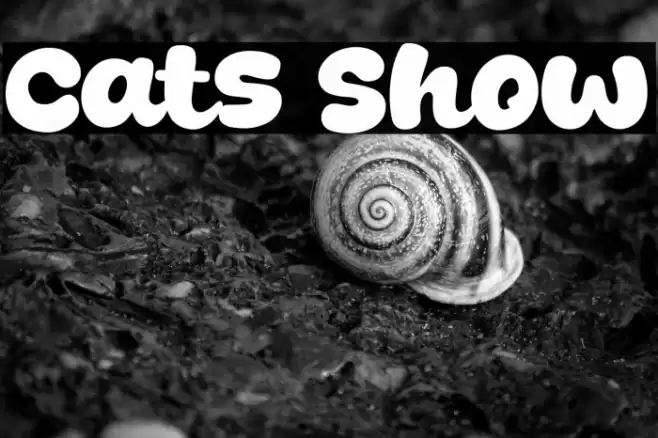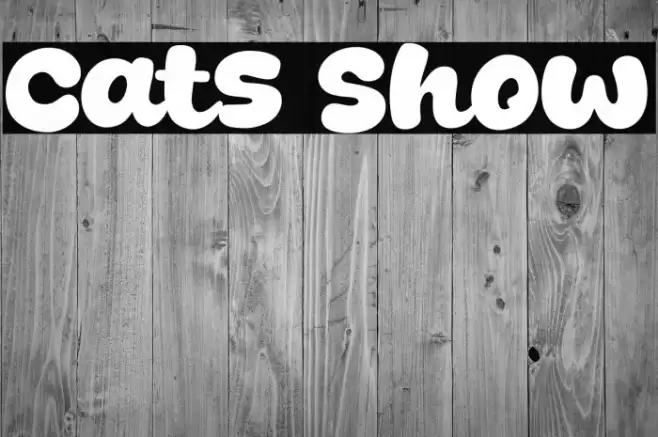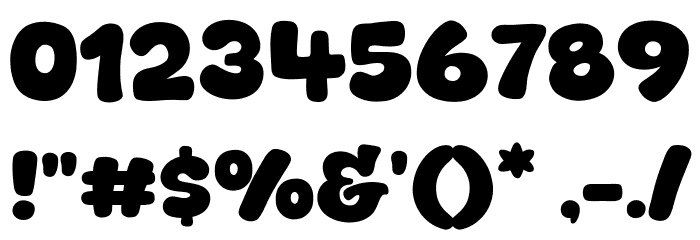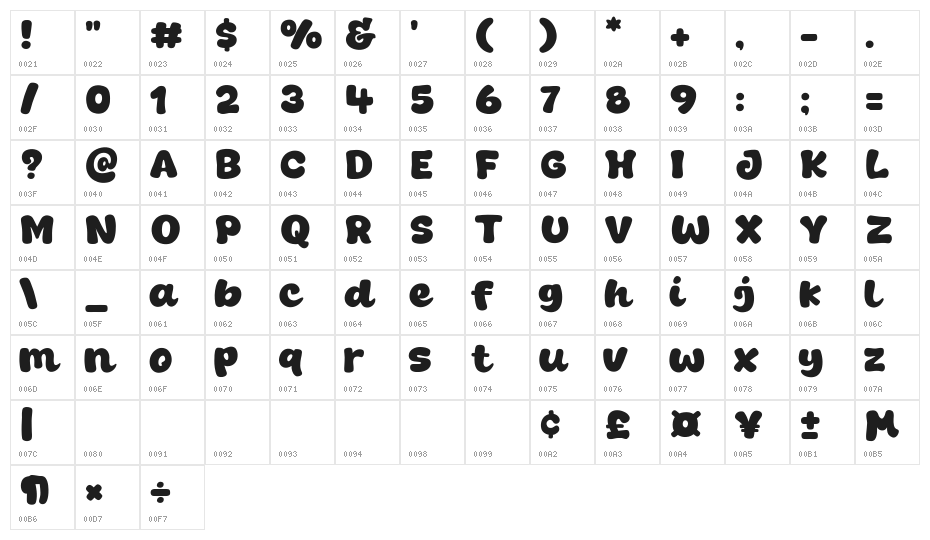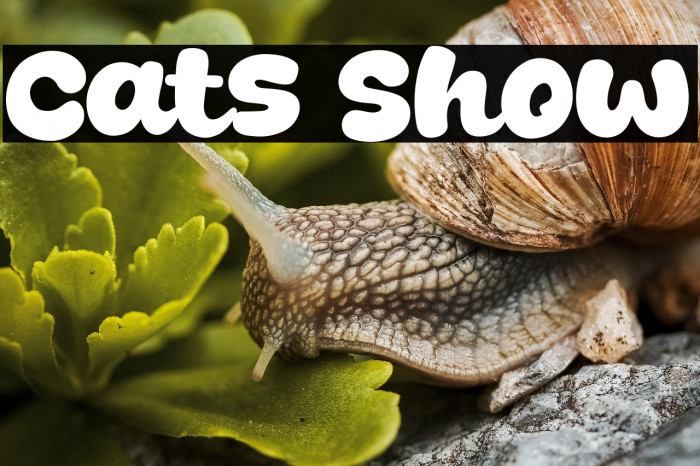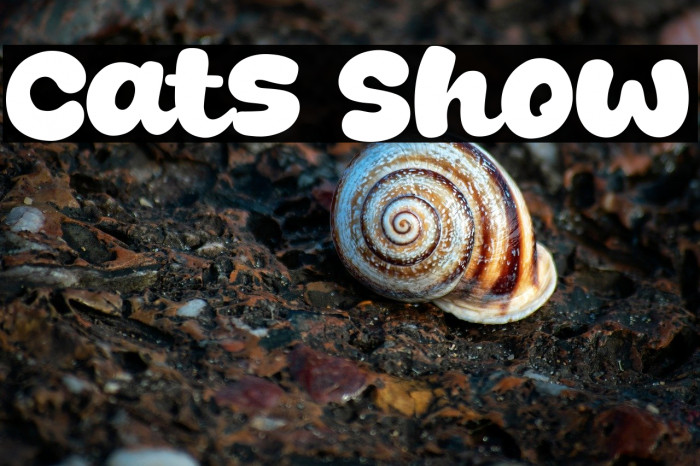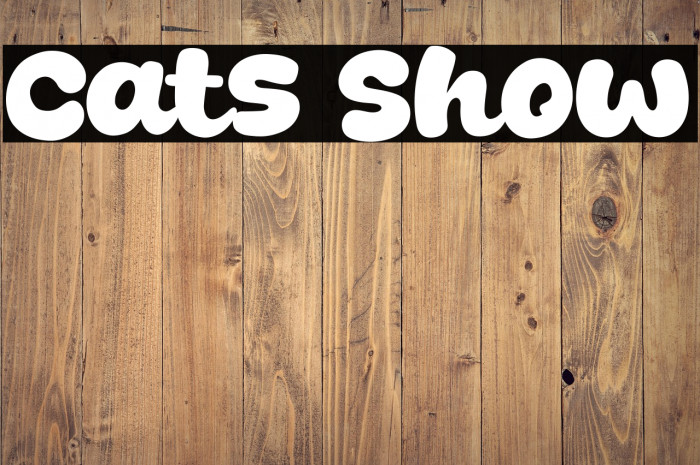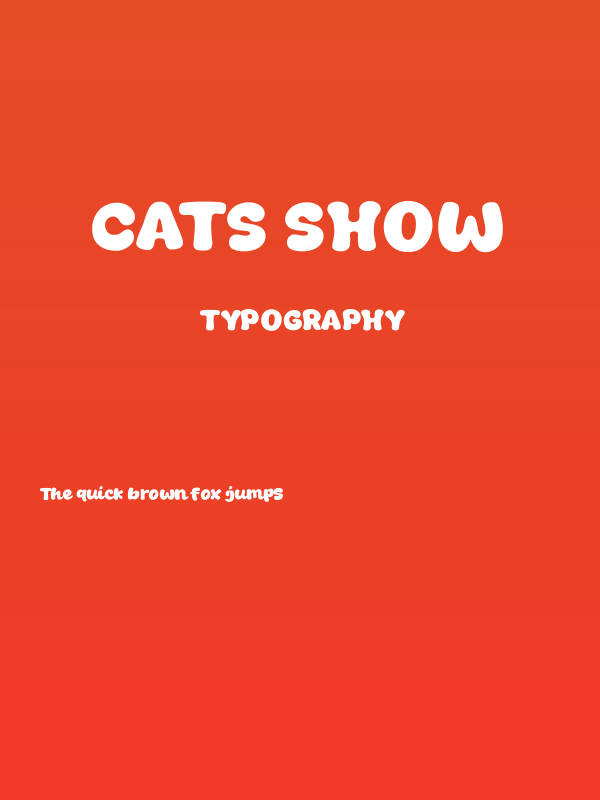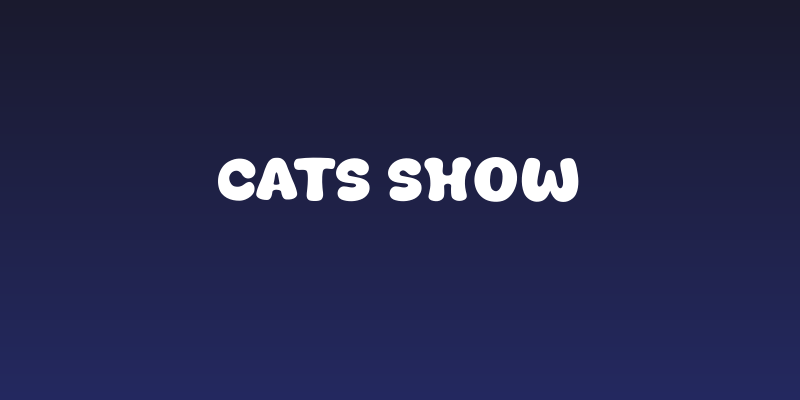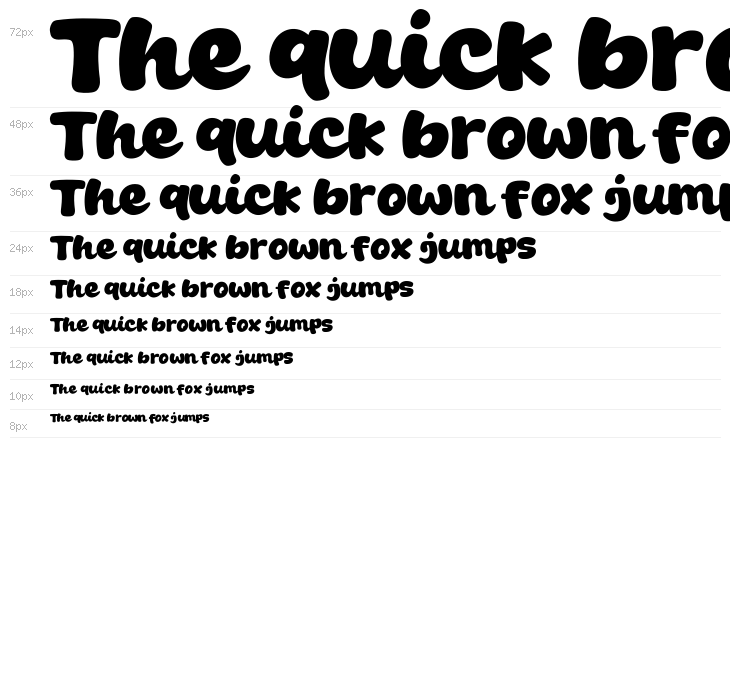
Cats Show Font
Cats Show Description
This playful and bold font features rounded, bubbly characters that convey a sense of fun and whimsy. The letters are thick and have a consistent weight throughout, creating a cohesive and friendly appearance. The font's unique style is characterized by its soft curves and slightly irregular shapes, giving it a hand-drawn feel. It is highly legible and stands out due to its distinctive, chunky design. The numbers and special characters maintain the same playful aesthetic, making it suitable for a variety of creative applications.
A bold, playful font with rounded, bubbly characters and a hand-drawn feel from Uncategorized fonts.
- Proposed Projects: Ideal for children's books, playful branding, party invitations, and creative posters.
- Overall Style: Playful
- Use Case: Logos, Headlines, Posters